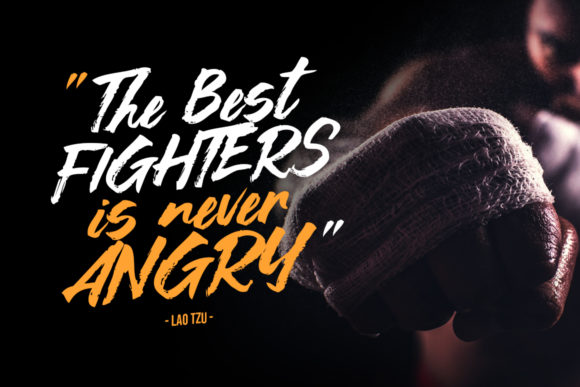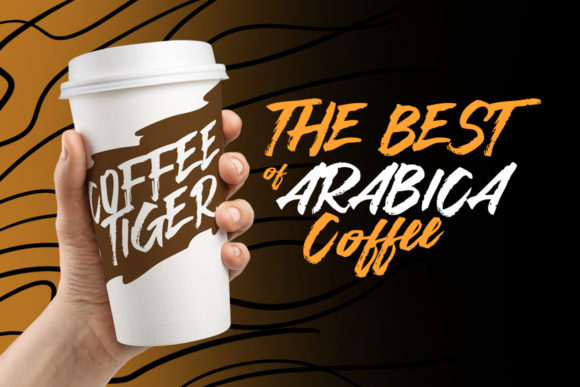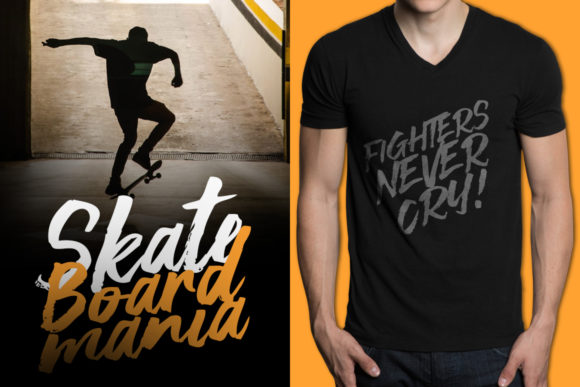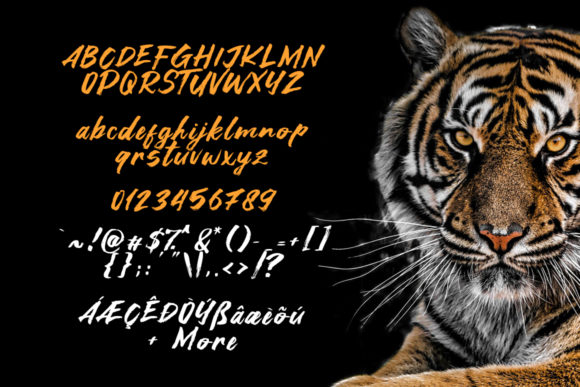
Asia Tiger Font
About Asia Tiger Font
Asia Tiger looks bold, yet sophisticated and features chunky and extended characters that will look particularly adept when used in logos, branding, packaging design, and much more. This masterfully designed script is a true must-have.